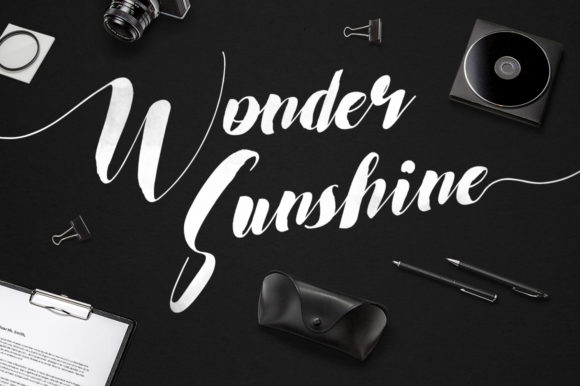
Introducing Wonder Sunshine Font, your key to creating captivating Instagram poetry that leaves a lasting impression. As a premium script font, Wonder Sunshine captures the essence of classic calligraphy, expertly blending charm and elegance in every stroke.
Immerse yourself in its exquisite details—a varying baseline that adds a touch of whimsy, smooth lines that flow effortlessly, and gorgeous glyphs that elevate your words into works of art. And with a treasure trove of stunning alternates at your fingertips, you'll have endless possibilities to customize and personalize your creations.
Wonder Sunshine is more than just a font; it's a gateway to unleashing your poetic soul on Instagram. Its timeless appeal will enhance your verses, making them stand out amidst the digital noise. Let your words dance upon the screen, adorned with the grace and sophistication of Wonder Sunshine, and captivate your audience with its irresistible charm.
But there's more! Wonder Sunshine isn't just confined to Instagram; its versatility extends to a wide range of creative endeavors. From handwritten notes that carry a touch of warmth to elegant invitations that exude sophistication, Wonder Sunshine effortlessly adapts to your every need.